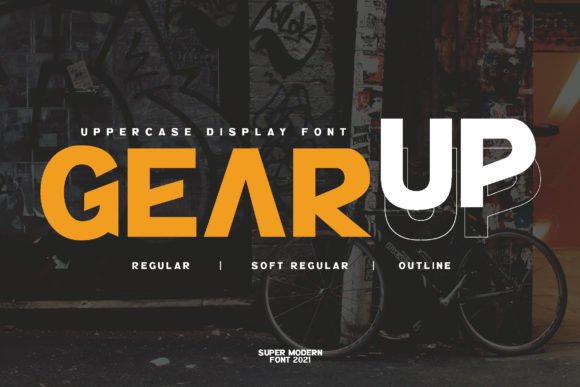
Get Ready to Level Up Your Designs with Gear Up Sporty Font
Have you ever been in the middle of a creative project, staring at a blank page, and suddenly, a burst of inspiration hits you? You envision a bold, eye-catching design that screams energy and excitement. That’s exactly the kind of vibe Gear Up Sporty Font is all about. This dynamic display font is designed to make a statement, perfect for projects that require a sporty, high-octane feel.
Whether you’re designing sportswear, logos, advertisements, or anything in between, Gear Up Sporty Font is the perfect tool to help you gear up your designs. Its bold, thick letters are sure to grab attention and leave a lasting impression. As a designer, you know how valuable it is to have the right font at your fingertips. With Gear Up Sporty Font, you’ll be able to create designs that are both stylish and functional.
- Font Size and Style: The font comes in 5 font styles: Regular, Italic, Bold, Bold Italic, and Outline, offering a range of options for designers and typographers.
- Unique Characteristics: This font features a dynamic, energetic design with bold lines and geometric shapes, making it ideal for sports and action-oriented branding.
Overall, I found the Gear Up Sporty Font to be a decent addition to any sport-related design project. ✨ The font’s bold and energetic feel makes it perfect for creating attention-grabbing titles and headings.
- ✨ The font’s modern aesthetic gives it a dynamic and youthful feel that’s perfect for sports branding.
- ✨ The font’s bold weight options make it easy to create striking headlines and titles.
- ⚠️ The font may not be the best choice for body text, as it can be a bit difficult to read in smaller sizes.
- ⚠️ The font’s limited language support may be a concern for designers working on international projects.
Overall, I would recommend the Gear Up Sporty Font for designers who need a bold and eye-catching font for their sport-related projects. While it may have some limitations, its modern aesthetic and versatility make it a solid choice for many designers.
- Use it to create eye-catching headings and titles.
- Pair it with bold and bright colors to create a dynamic look.
The Gear Up Sporty Font is ideal for:
- Sports branding and marketing materials.
- Fitness and wellness websites and social media.
- Action-packed advertisements and promotions.